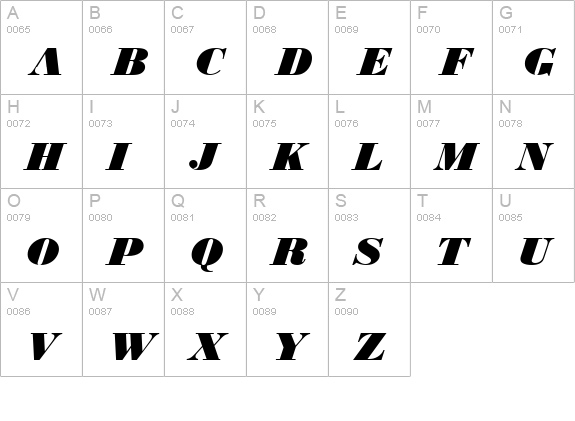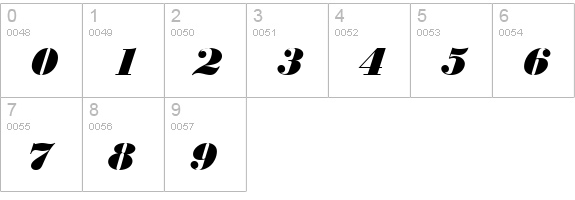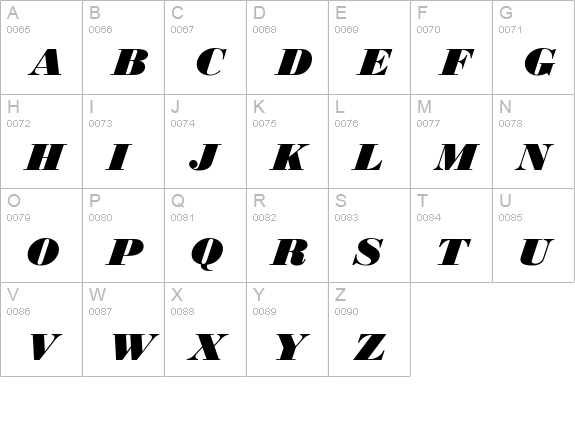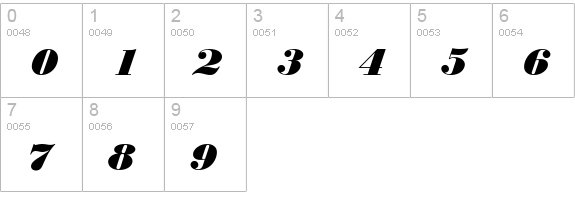
BodoniDBla Italic Font Details
BodoniDBla Italic is a distinctive, italic variant in the BodoniDBla typeface family \xE2\x80\x94 well suited to design and typography projects.
BodoniDBla Italic is a stunning and elegant typeface that exudes sophistication and style. With its sleek and graceful letterforms, this font is perfect for adding a touch of class to any design project. The slanted italic style adds a dynamic and modern flair to the classic Bodoni typeface, making it versatile for a wide range of applications. The BodoniDBla Italic font is not only visually appealing but also highly readable, making it ideal for both headlines and body text. Whether you are designing a luxury brand logo, a high-end magazine layout, or an elegant wedding invitation, this font will elevate your design to the next level. Best of all, BodoniDBla Italic font is available for free download at FontsMarket.com. Now you can access this premium typeface without any cost, allowing you to enhance your projects with a touch of luxury without breaking the bank. Don't miss the opportunity to add BodoniDBla Italic to your font collection and elevate your designs with its timeless elegance.